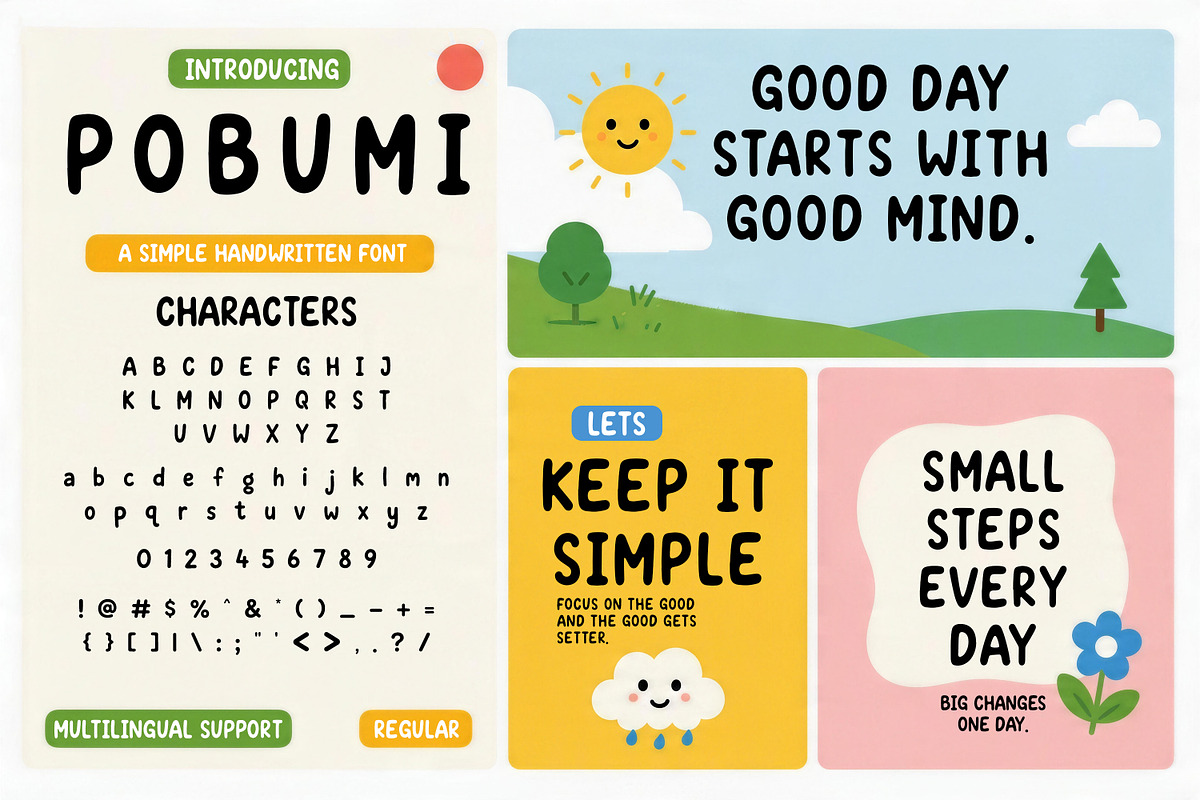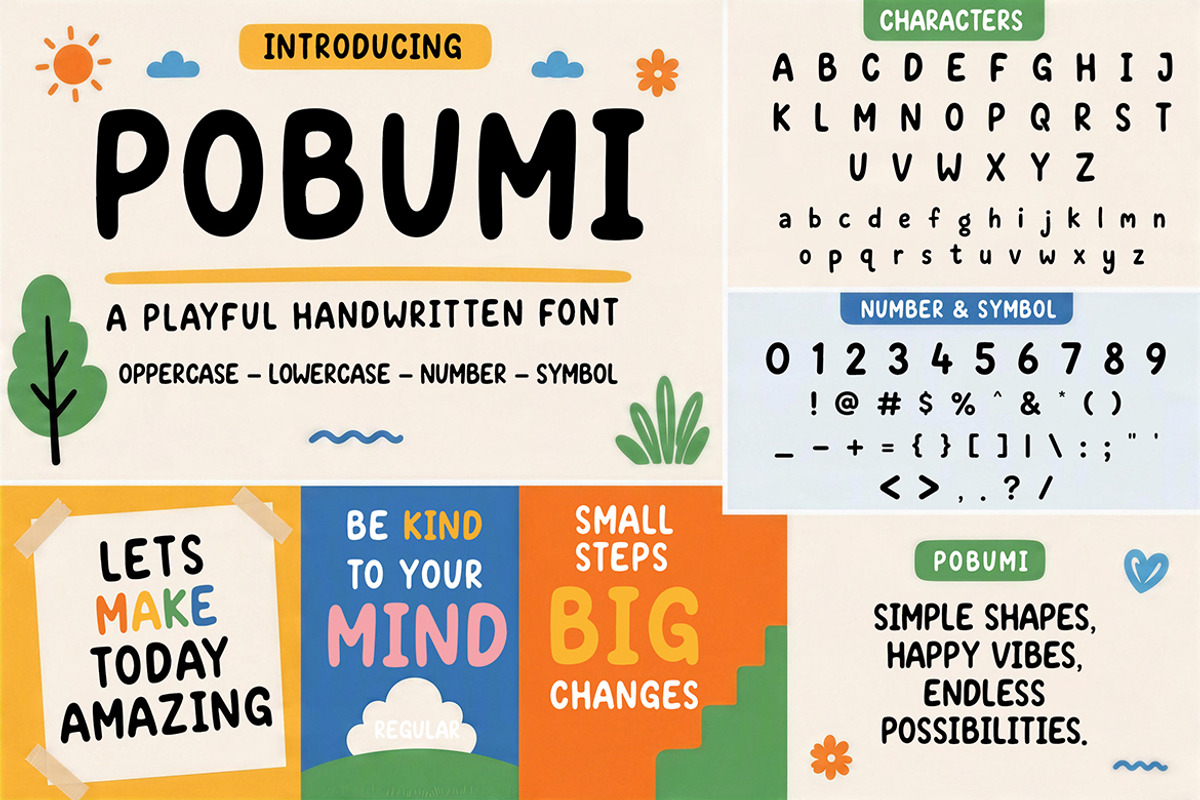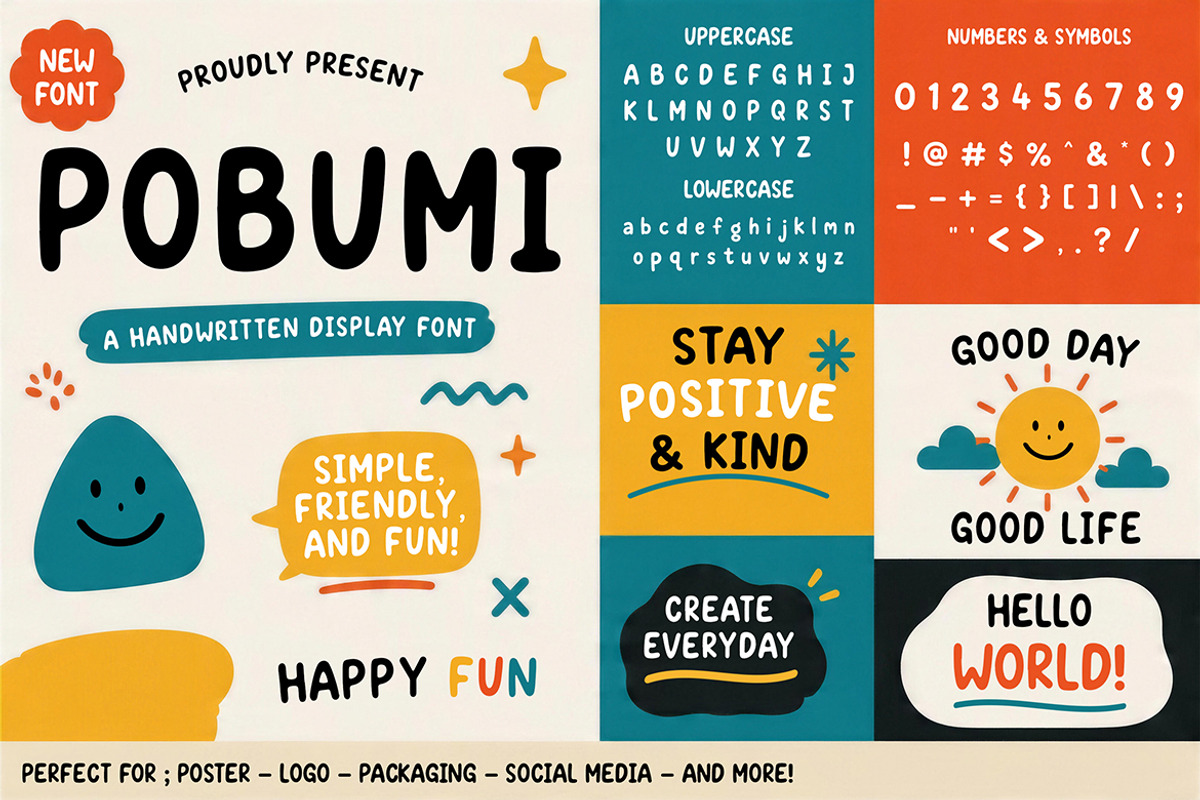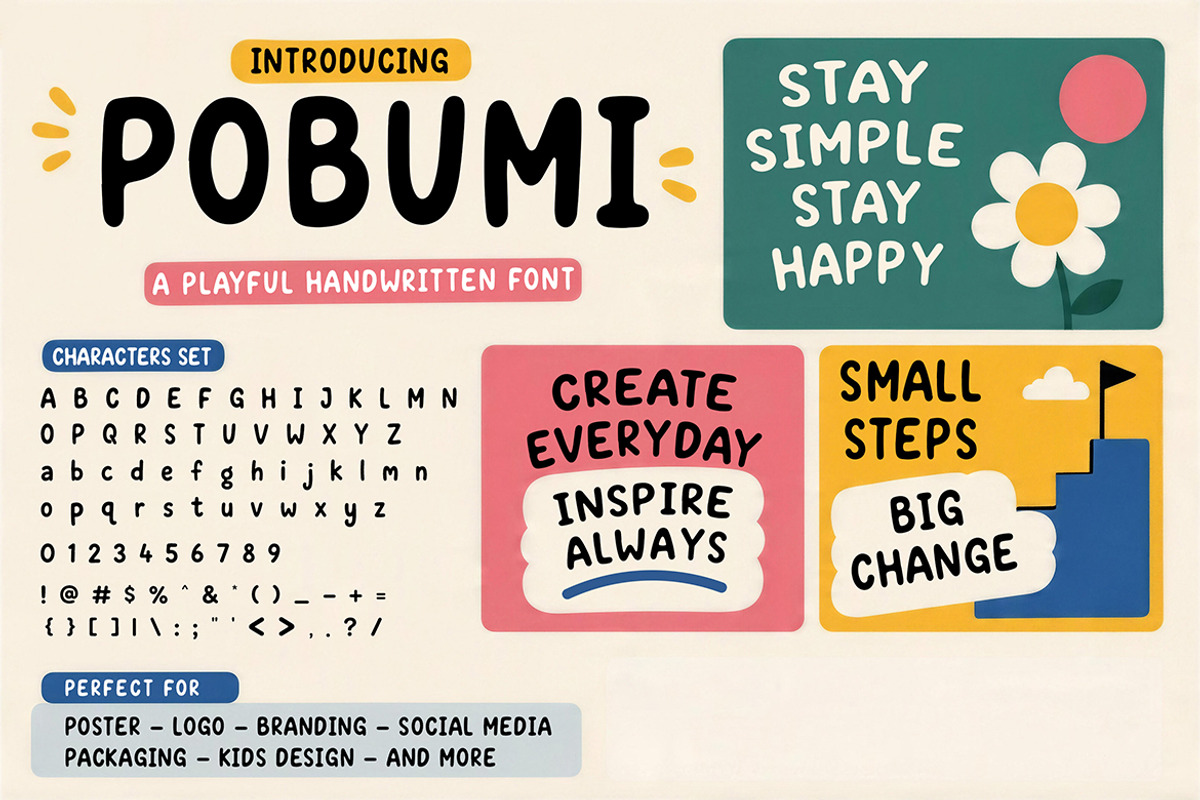
POBUMI
Pobumi is a playful handwritten font with a cheerful, friendly, and approachable personality. Designed with rounded letterforms and a clean casual style, this typeface brings a sense of warmth and positivity to any project. Its simple handwritten look makes it ideal for fun, uplifting, and kid-friendly designs, while still being neat enough for branding, social media, and creative display use.
* Children’s designs and educational materials
* Cute posters, quotes, and greeting cards
* Social media posts and playful branding
* Packaging for kids’ products and handmade goods
* Fun logos, headlines, and creative merchandise
With its lighthearted character and easy-to-read handwritten style, Pobumi is a charming font choice for designers who want to create joyful and memorable visual work.